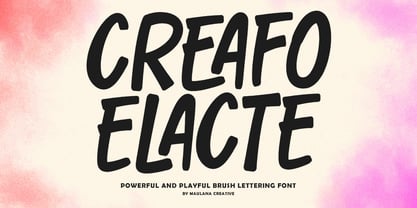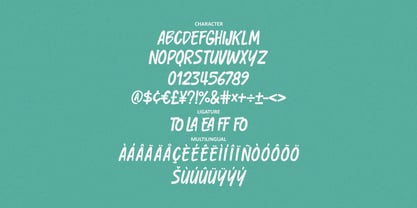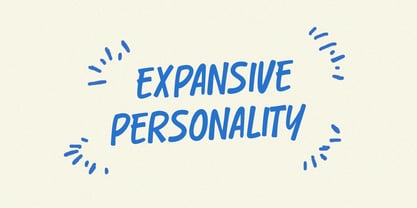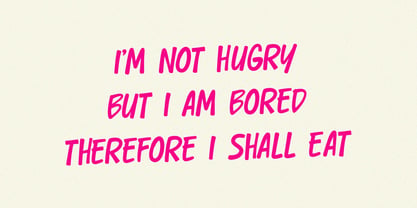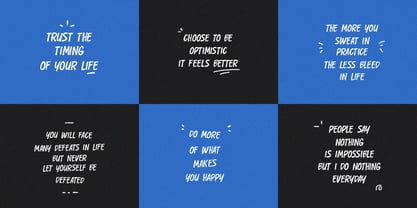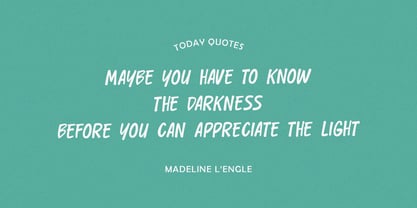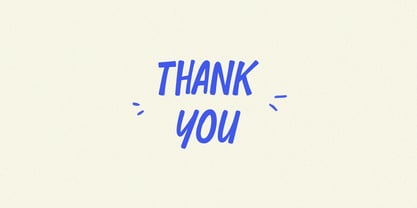
MC Creafo Elacte
by Maulana Creative
The MC Creafo Elacte Font Family was designed by Gilang Maulana and published by Maulana Creative. MC Creafo Elacte contains 1 styles. More about this family
Unleash your creative energy with Creafo Elacte, a dynamic and expressive brush lettering font designed to bring a bold and joyful spirit to any project. Crafted with a confident, hand drawn feel, this font strikes the perfect balance between powerful presence and playful spontaneity. Whether you are designing vibrant crafting captivating social media graphics, creating stand out branding, or adding a touch to invitations, Creafo Elacte is your go to tool. Its thick strokes and slight slant give it a lively, energetic movement that instantly grabs attention. Key Features: - Powerful and Playful: A unique style that is both assertive and fun. - Authentic Brush Texture: Gives your designs an organic, hand crafted look. - Extensive Character Set: Includes all uppercase letters, numbers, punctuation, and essential symbols. - Multilingual Support: Reach a global audience with support for numerous Latin based languages. - Handy Ligatures: Smooth, natural connections for a more cohesive flow. - Perfect for: Product, Graphic Design, Branding, Logo, Social Media Quotes, Music Design, Kids Products, and much more!
Designers: Gilang Maulana
Foundry: Maulana Creative